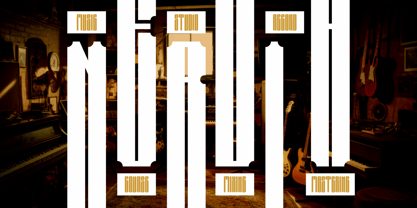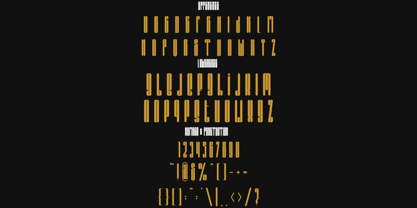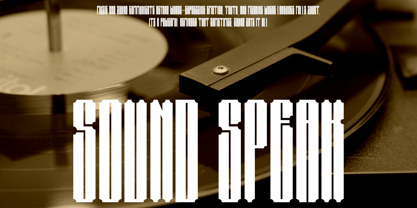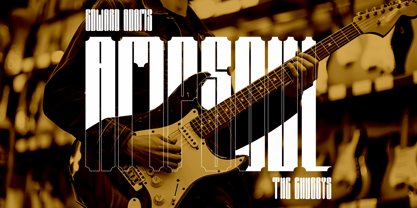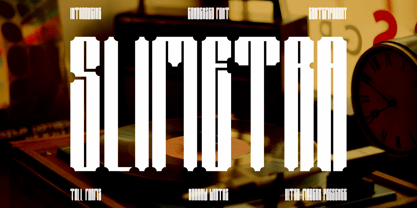
Slimetra
by Shanaf
The Slimetra Font Family was designed by Yesie Erma Yunita and published by Shanaf. Slimetra contains 2 styles and family package options. More about this family
Slimetra Condensed Font is a bold, narrow typeface designed to bring maximum impact with minimal space. Its tall, elongated letterforms create a striking presence that feels both vintage and modern. The sharp verticals and geometric edges highlight strength, while subtle rounded cuts add character and uniqueness. Perfectly balanced between retro and contemporary, Slimetra is crafted for attention-grabbing layouts that demand elegance and boldness in equal measure.
This font is ideal for logos, branding, posters, packaging, editorial titles, and even film or music cover designs. Its condensed form makes it suitable for tight spaces while maintaining strong legibility. The dramatic proportions give it a distinctive look that resonates with retro nostalgia yet feels fresh for modern design needs. Whether used on business branding, book covers, or stylish magazine layouts, Slimetra ensures every design carries a powerful, unforgettable identity.
Designers: Yesie Erma Yunita
Foundry: Shanaf